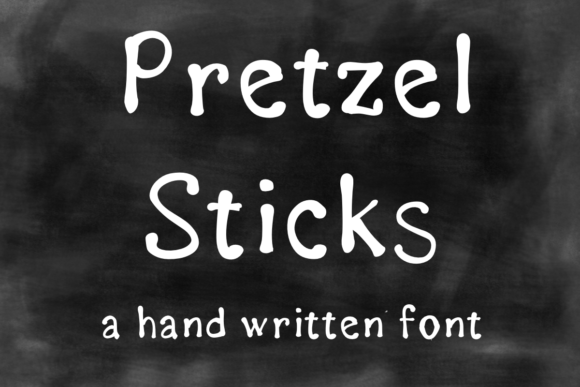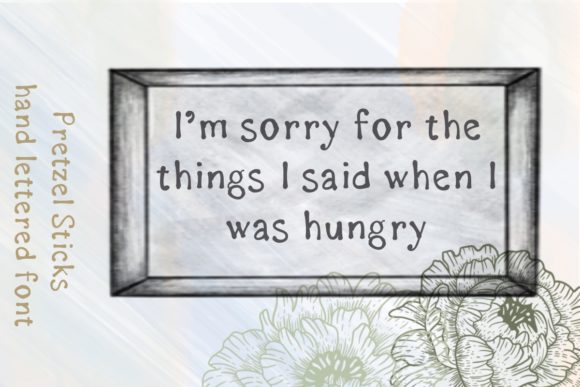
Pretzel Sticks Font
About Pretzel Sticks Font
Pretzel Sticks features a cool tapered effect that evokes the look of pretzel sticks, making it a fun, whimsical and quirky font.